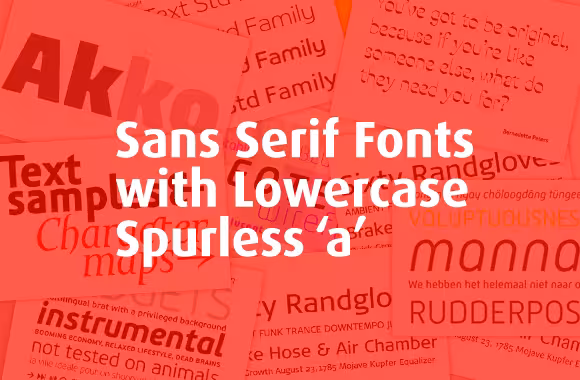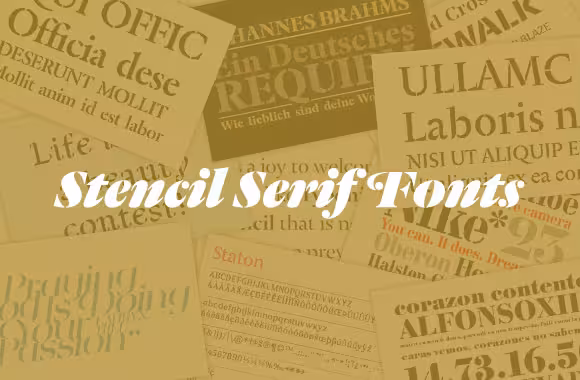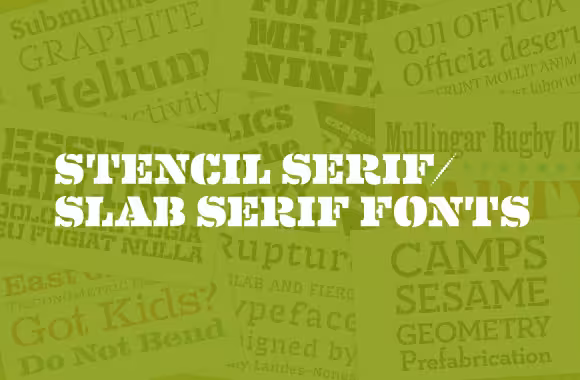
We first highlighted Typecache, an independent online compendium for typography, when we featured its list of 30 Alternatives to Helvetica back in May. Since then, the site has grown significantly and now offers 6 different themed typeface collections — what it calls “Font Clusters” — in addition to plenty of other typographic resources and eye-candy that most designers are sure to love.
Now, in addition to the lists of Rounded/Blunt-Cornered Fonts, Helvetica alternatives and Din alternatives, Typecache has added the following:
Sans Serif Fonts with Lowercase Spurless ‘a’
Stencil Serif/Slab Serif Fonts
In May, Typecache co-founder Taro Yumiba told TNW what his site is all about:
There are many great type foundries around the world. It has been really difficult to keep up with the activities of every single one of them…so why not collect their information and make an online compendium?
This is how we started the project. As typographic literacy grows, the site will hopefully be a useful resource for designers, art directors and type enthusiasts
All in all, these are simply some of the most comprehensive collections you can find anywhere on the Web. That’s why, for designers of all sorts, Typecache is a resource worth bookmarking and visiting again and again.